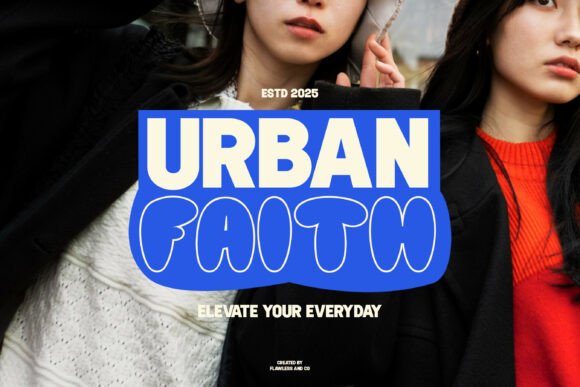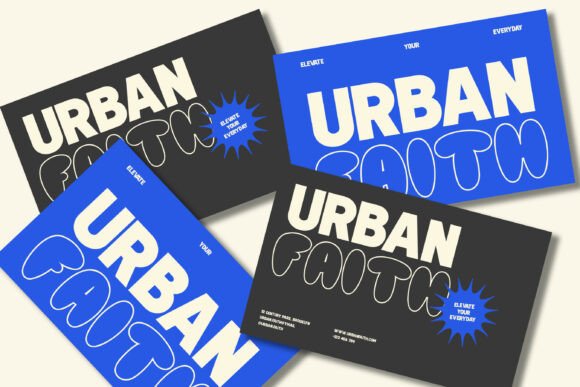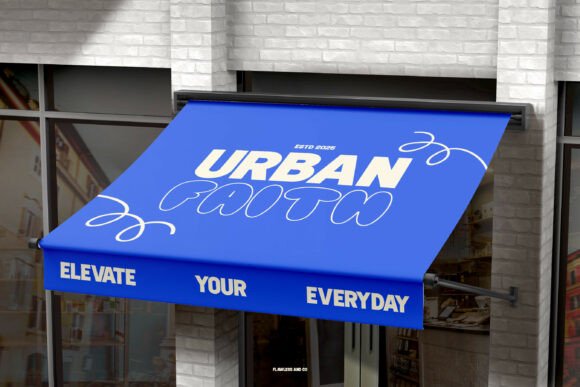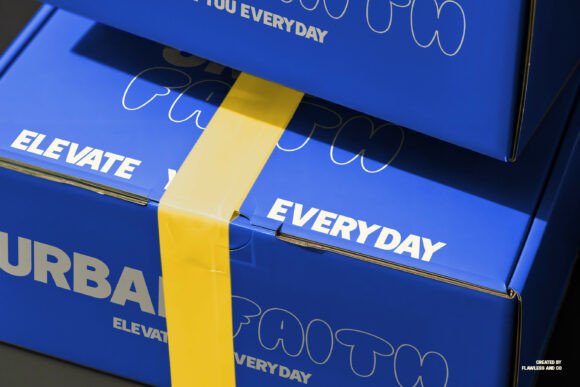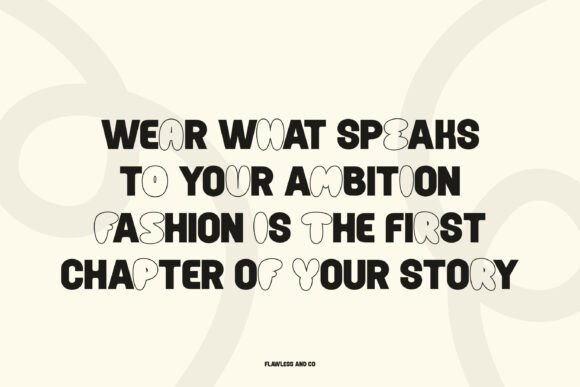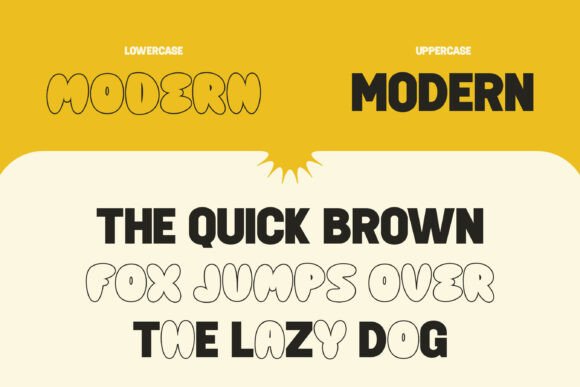
Introduction to Noister Font Font
Fonts play a crucial role in design, and the Noister Font font is a typeface that brings both character and versatility to any project. Whether you’re working on a branding project, a website, or a print design, the Noister Font font offers a unique style that can elevate your work.
Noister is a modern display duo font designed to bring playful contrast and bold personality into your designs.
Combining two distinctive styles in one typeface, Noister creates eye-catching typography that feels fun, expressive, and full of energy Its strong main characters paired with a complementary secondary style make it easy to build dynamic layouts, standout headlines, and memorable brand identities.
The Noister Font font is more than just a typeface – it’s a design tool that helps you communicate your message with style and clarity. Its unique character set and versatile design make it suitable for a wide range of applications, from elegant invitations to bold headlines.
With its carefully crafted letterforms and balanced proportions, the Noister Font font ensures readability and visual appeal across all mediums.
The Noister Font font stands out with its unique design, exceptional readability, and versatility across various design applications.